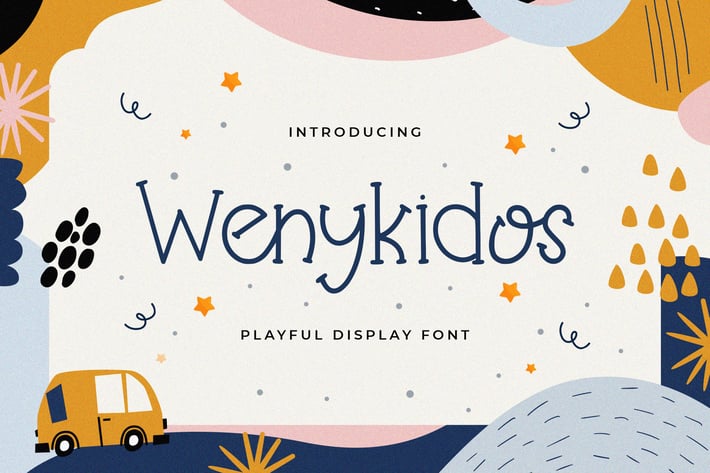
Wenykidos - Playful Display Font
Introducing Wenykidos - Playful Display Font
Wenykidos is a playful, and quirky display font. Its friendly feel makes this font incredibly versatile, fitting a wide range of contexts. Add it to your creative ideas and notice how it makes them stand out!